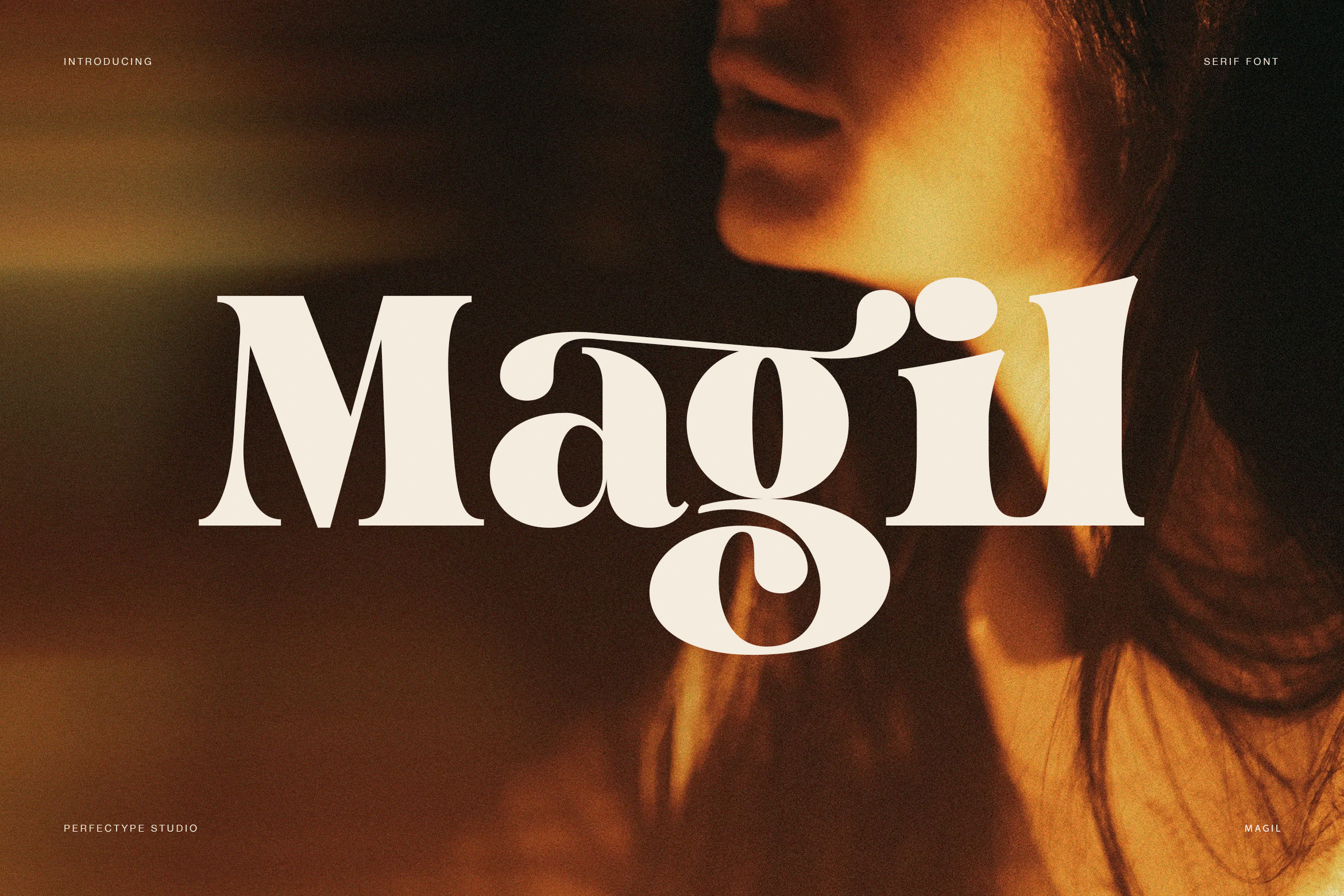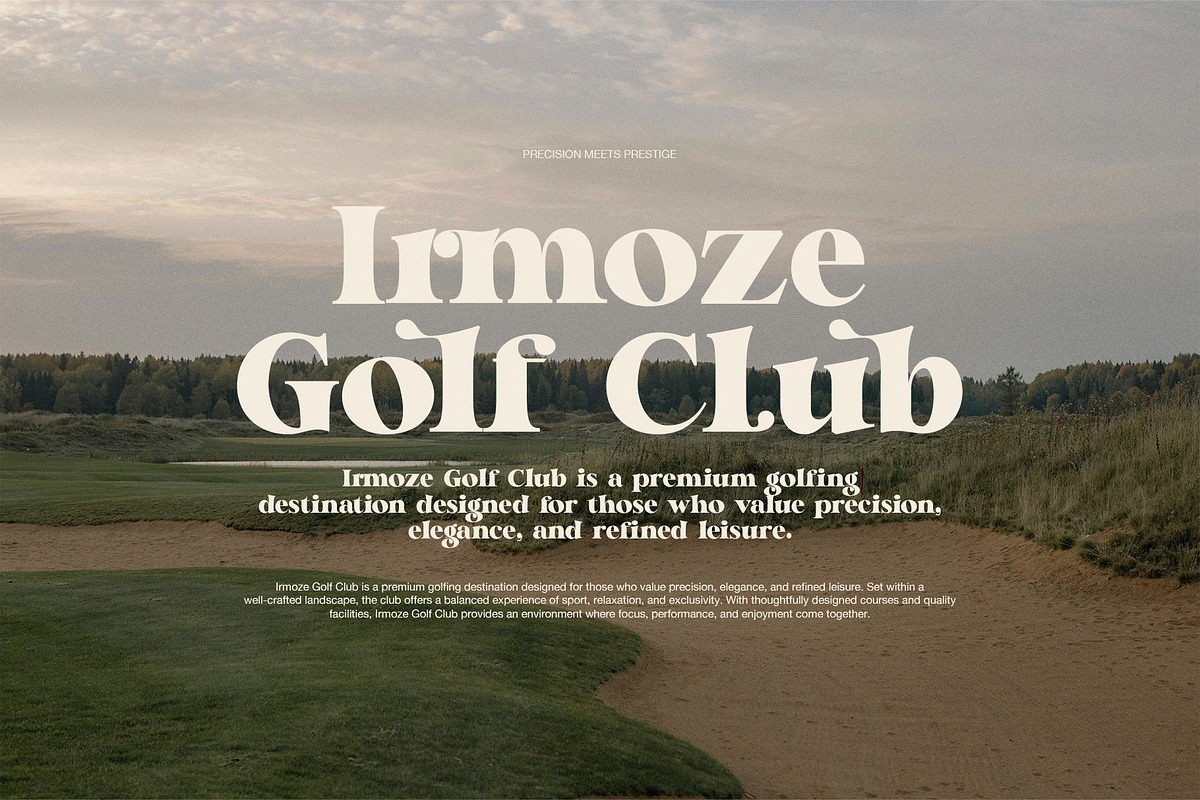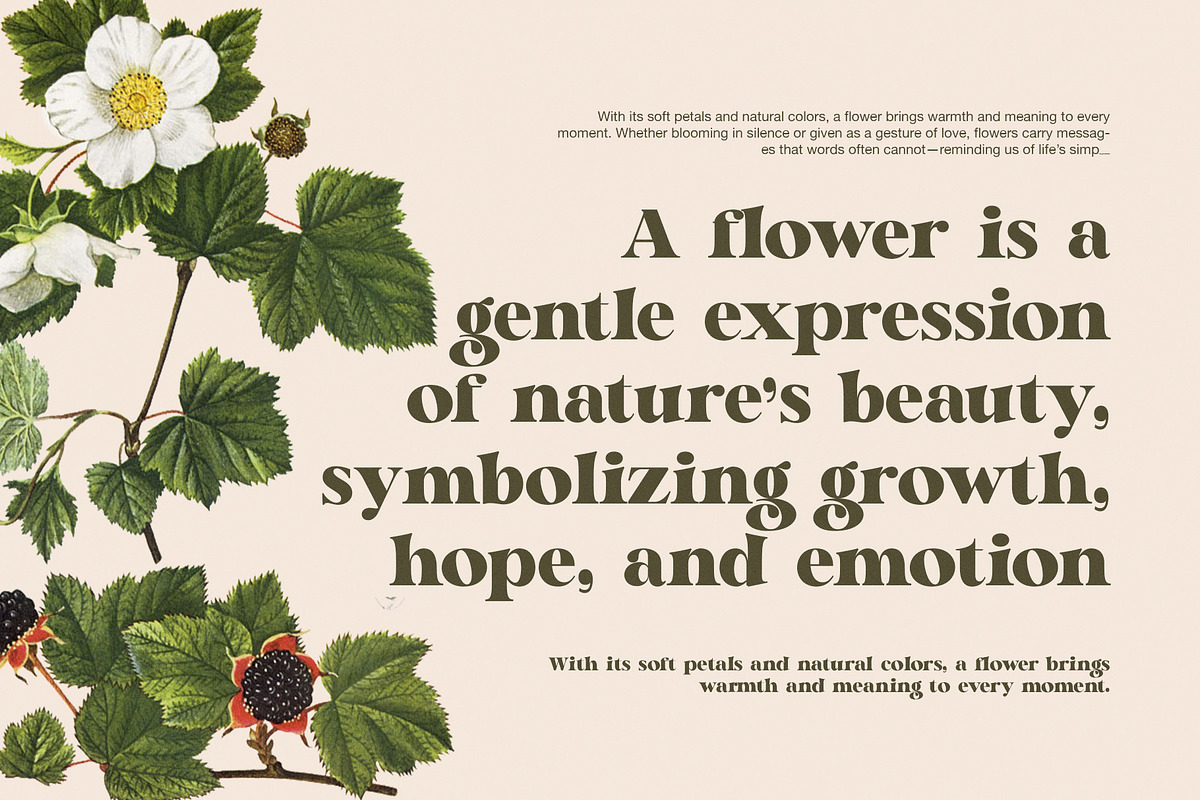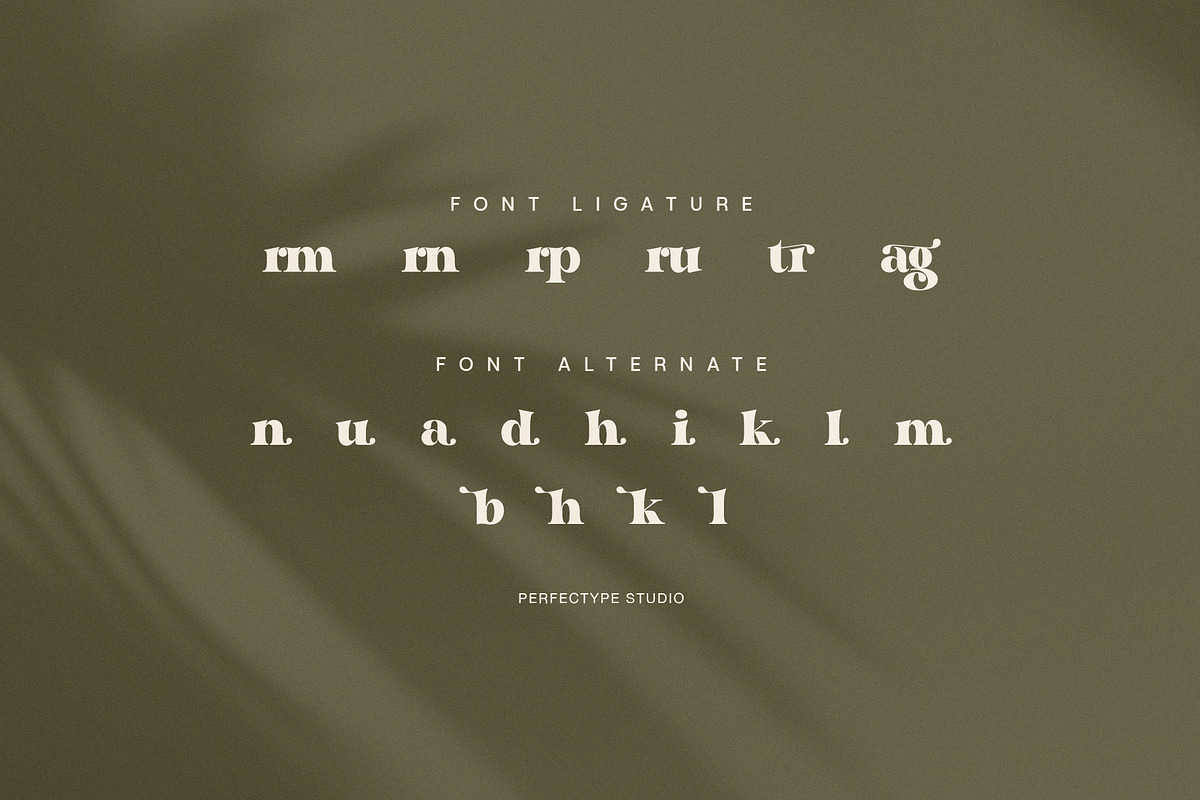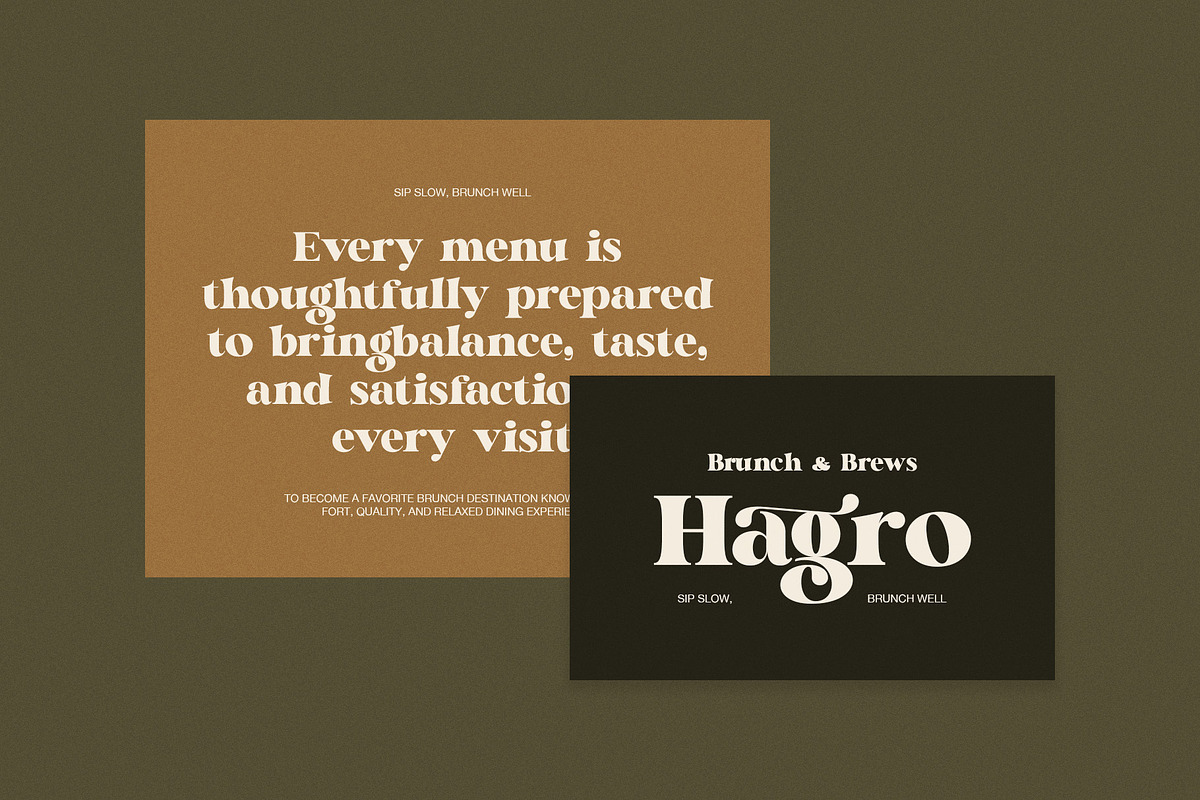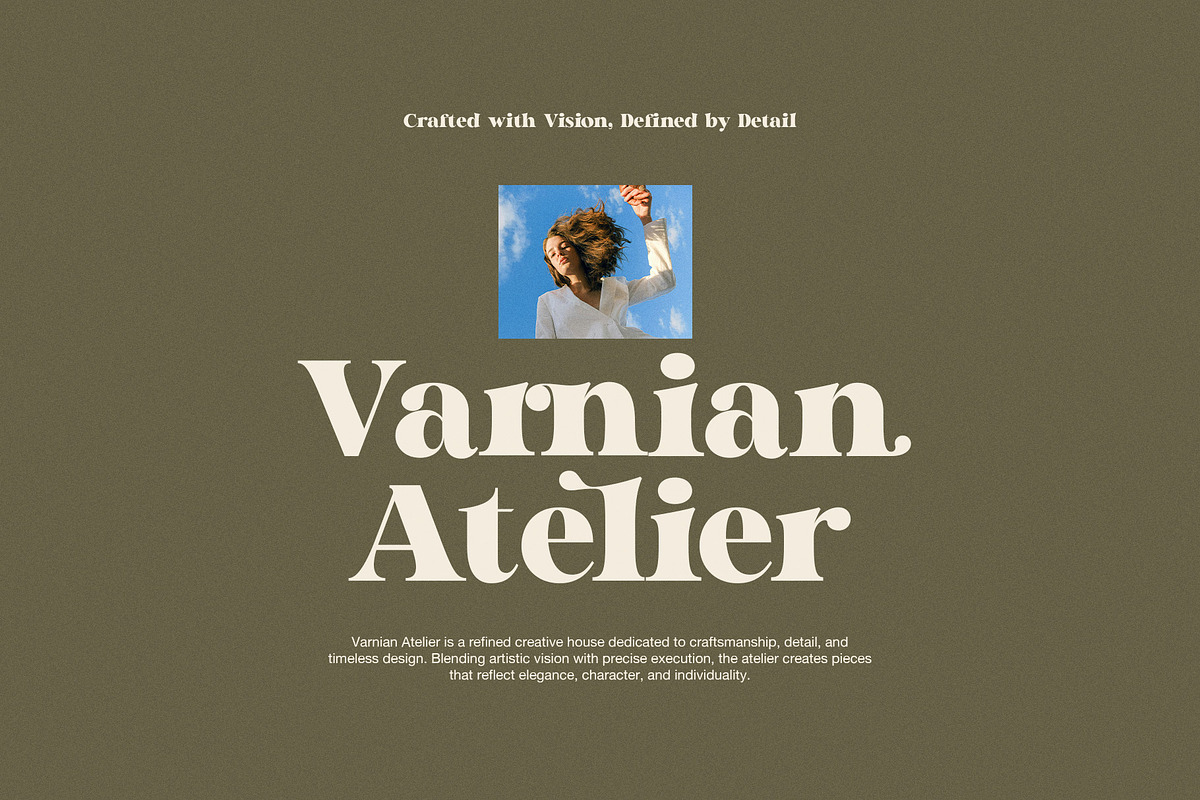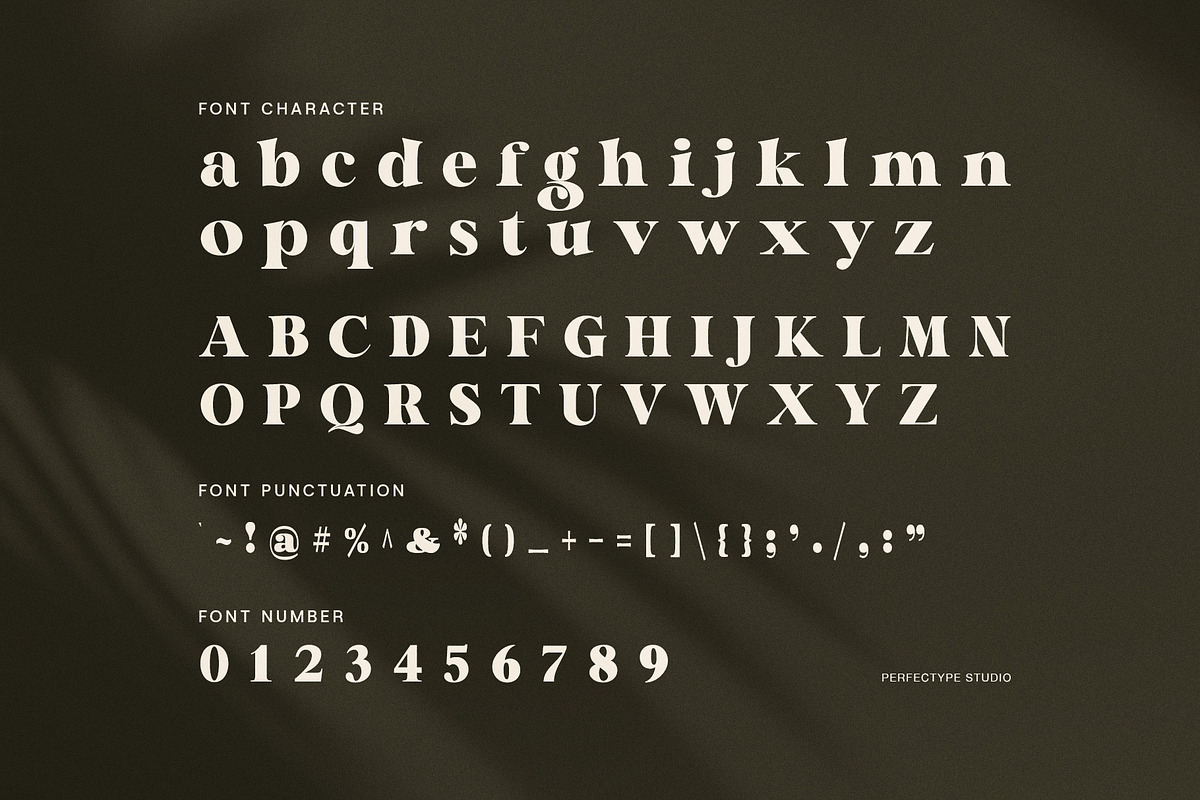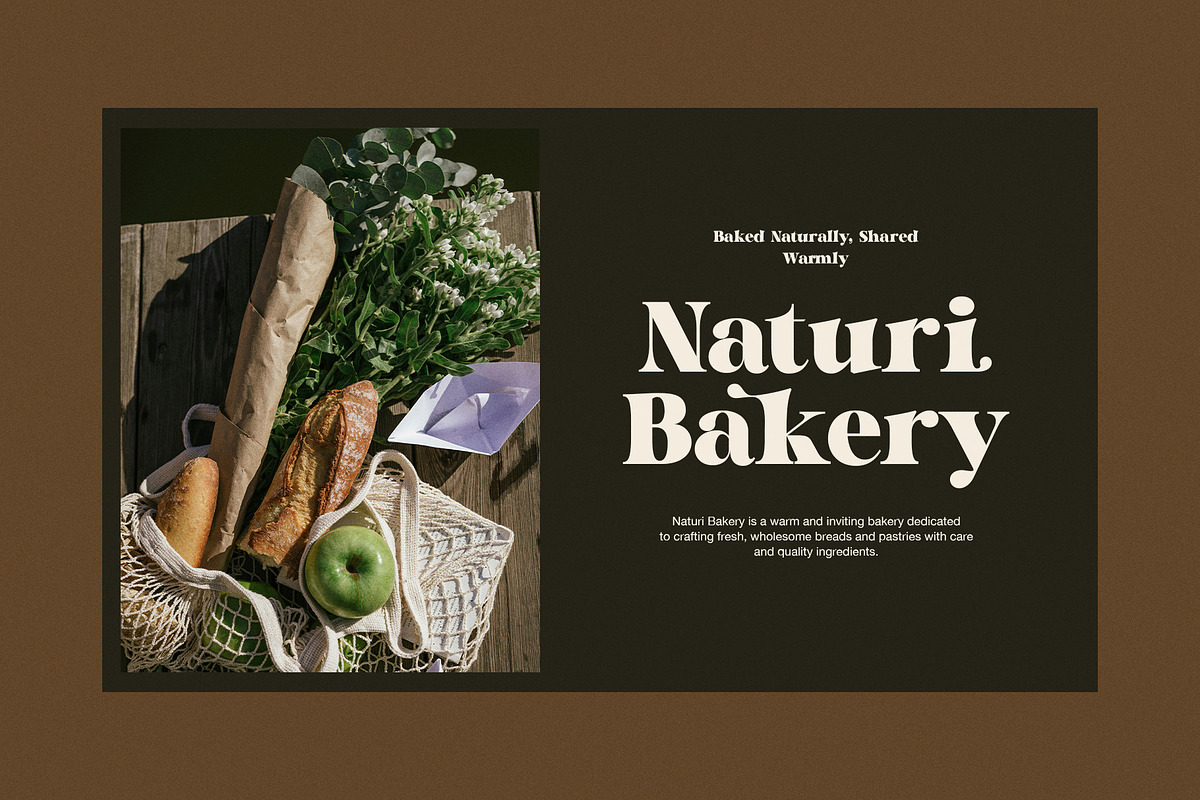
Magil Elegant Serif Font
Elegant Serif Font for Editorial and Lifestyle Branding
Magil is an elegant serif font designed to express warmth, clarity, and refined beauty. Inspired by editorial typography and natural forms, Magil blends classic serif structure with soft curves and balanced contrast. As a result, it creates a timeless look that feels calm, welcoming, and modern.
Moreover, Magil features carefully crafted letterforms that feel smooth and organic. Because of this thoughtful design, headlines appear confident without feeling heavy. At the same time, the font remains highly readable, even in longer text. Therefore, designers can use Magil comfortably across print and digital projects.
In addition, Magil includes refined ligatures and stylish alternates that enhance rhythm and flow. These details allow words to connect naturally, which adds personality while keeping elegance intact. Furthermore, the balanced uppercase characters work beautifully for logos and titles, while the lowercase forms feel gentle and friendly.
Magil fits a wide range of creative uses. For example, it works perfectly for café and bakery branding, lifestyle products, editorial layouts, fashion ateliers, and boutique identities. It also performs well for botanical designs, wellness brands, packaging, magazines, and social media visuals. Because the contrast stays soft, layouts feel warm, human, and premium.
Why designers choose Magil
Magil helps brands communicate elegance with comfort and emotion. It supports storytelling while maintaining a clean and professional appearance.
Key features and benefits:
Elegant serif style with organic curves
Soft contrast for calm visual balance
Refined ligatures for smooth typography
Stylish alternates for unique expression
Strong uppercase for branding and headlines
Clear lowercase for easy reading
Complete numerals and punctuation
Suitable for print and digital use
Overall, Magil is an elegant serif font that blends tradition with modern sensitivity. It allows designers to create visuals that feel thoughtful, inviting, and timeless.